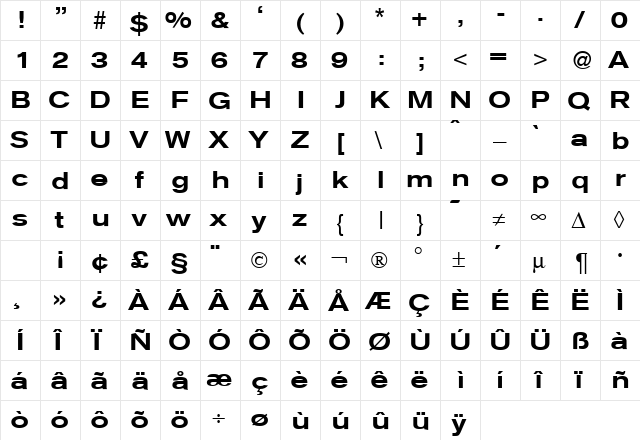
AkzentExtendedMedium Regular
Design Context for AkzentExtendedMedium Typeface
AkzentExtendedMedium offers clean, dependable letterforms without strong stylistic allegiance, making it a practical choice for designers who need flexibility.